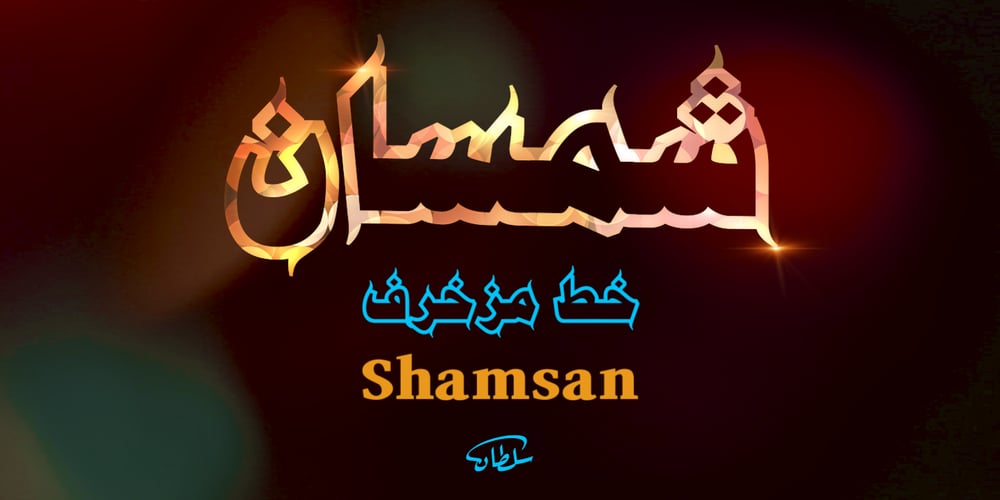
SF Shamsan
SF Shamsan font
SF Shamsan Font Family was designed by Sultan Maqtari and published by Sultan Fonts. SF Shamsan contains 1 styles and family package options. Shamsan Typeface:Shamsan is a thick Arabic decorative font designed for titles and display, created by Sultan Maqtari. This font is distinguished by its unique Arabic aesthetics and large letters that attract attention. Here are some of the distinguishing features of the Shamsan font:Large letters: The Shamsan font is characterized by its large letters that resemble classical Arabic letters. These letters make the font very suitable for titles, banners, and headlines.Arabic decorations: The Shamsan font includes decorative embellishments that match the direction of the font’s letters, adding a wonderful aesthetic touch.Balance: The Shamsan font is characterized by its balance between the letters and the spaces between them. This balance gives the font an elegant and organized appearance.Clarity: Despite its thickness, the Shamsan font is characterized by its clarity and readability. Font Uses:Titles: The Shamsan font is ideal for main titles in books, magazines, newspapers, and websites.Banners: The Shamsan font is widely used in advertising banners and commercial signs.Presentations: The Shamsan font can be used in presentations to add a touch of beauty and distinction.Artwork: The Shamsan font is used in some artwork to add a distinctive decorative element. Overall, the Shamsan font is a beautiful and attractive Arabic font that is suitable for many uses. It is characterized by its unique Arabic aesthetics and large letters that attract attention. Additional Notes:* The font is designed for display purposes, such as titles and headings. It is not recommended for use in long passages of text.* The font is available in a variety of weights and shapes, which can be used to create different effects.* The font is compatible with a variety of software programs, including Adobe Photoshop, Illustrator, and InDesign.